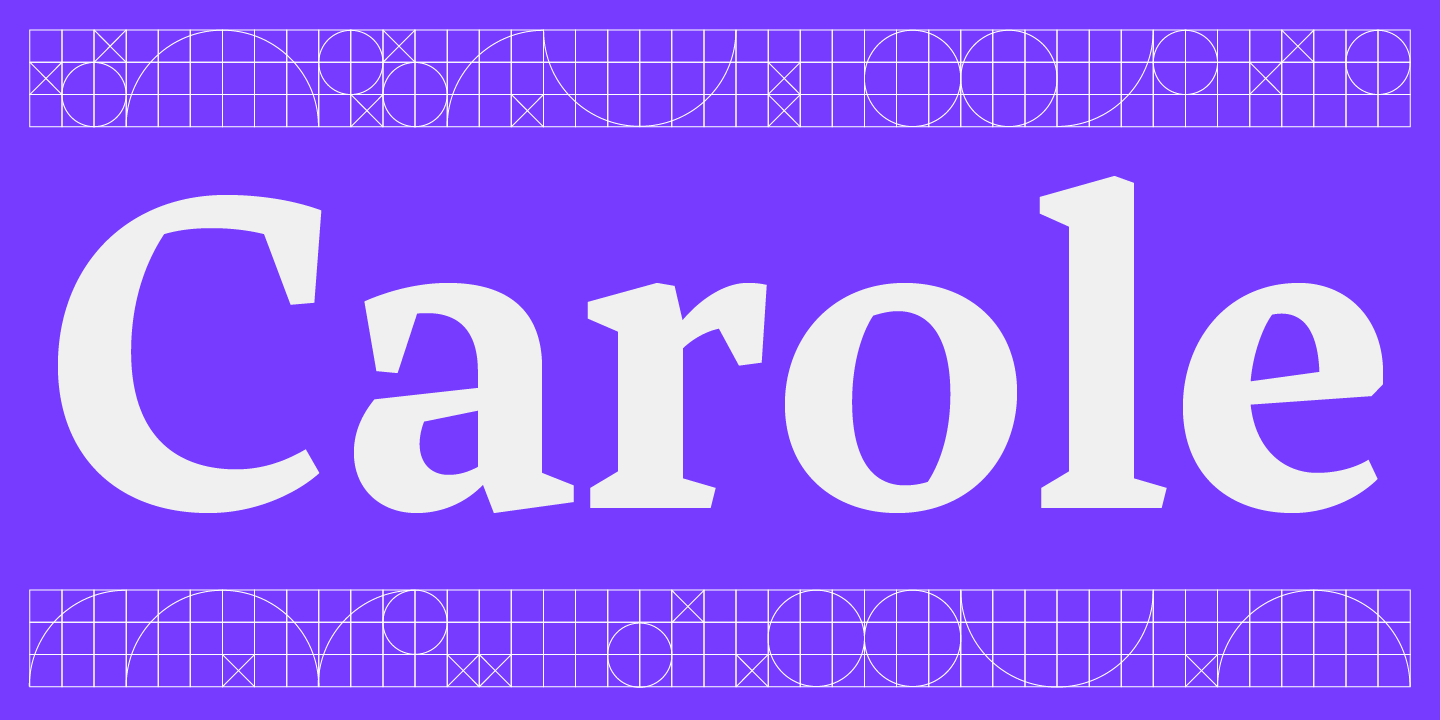
Carole Serif Font is perfect for elegant literary publications, sophisticated women's magazines, feminine lifestyle branding, graceful wedding materials, refined beauty packaging, classic romance novels, artistic cultural exhibitions, timeless fashion campaigns, elegant stationery design, and sophisticated feminine communications.
What makes Carole Serif Font exciting is its graceful femininity that perfectly captures the timeless elegance and sophisticated charm found in classic feminine expression and refined literary tradition. This typeface features elegant serif letterforms with graceful proportions and feminine details that evoke the sophisticated beauty and intellectual elegance of classic feminine culture. The font's refined personality and feminine authenticity make it ideal for lifestyle brands seeking to convey grace, sophistication, and the timeless elegance that comes from refined feminine expression and classic beauty traditions.
Carole Serif Font family includes graceful weight variations and feminine alternatives that enhance its elegant appeal while providing design flexibility for feminine lifestyle and literary applications. The font features refined ligatures, feminine-themed ornaments, and elegant character variations that create authentic sophisticated atmosphere for feminine and literary branding.
Publishing houses and feminine lifestyle brands consistently choose Carole Serif Font Free Download for projects requiring authentic feminine appeal and literary credibility. The font's graceful character excels in applications targeting sophisticated women who appreciate genuine elegance and refined feminine culture. Whether you're designing for women's publications, elegant lifestyle brands, or literary projects, this sophisticated typeface delivers the feminine authenticity and graceful elegance that resonates with audiences seeking genuine refined beauty and the timeless sophistication that defines classic feminine expression and elegant literary tradition.